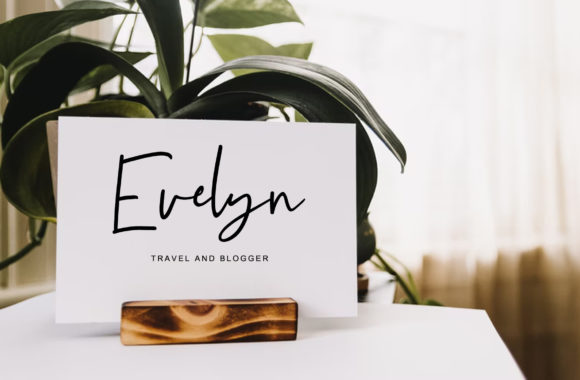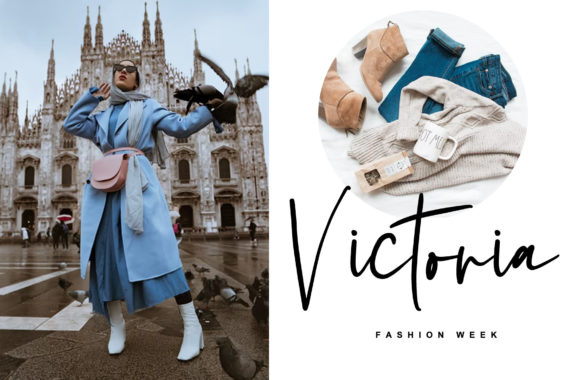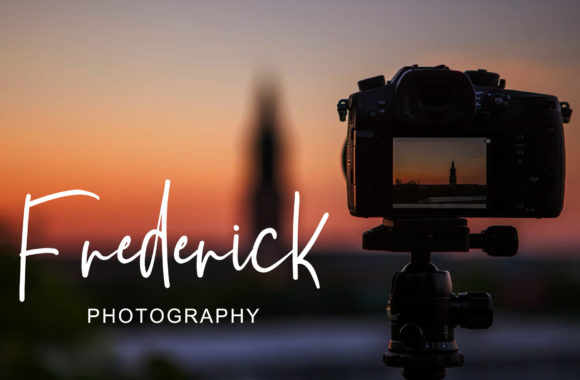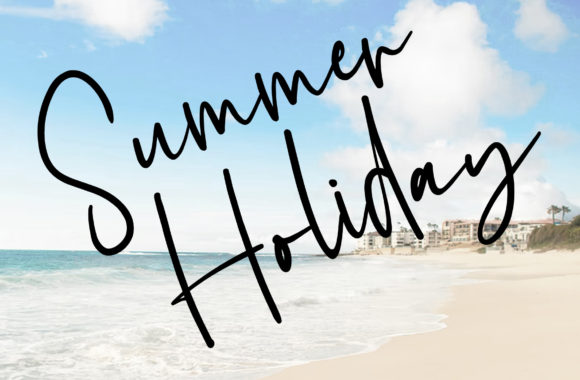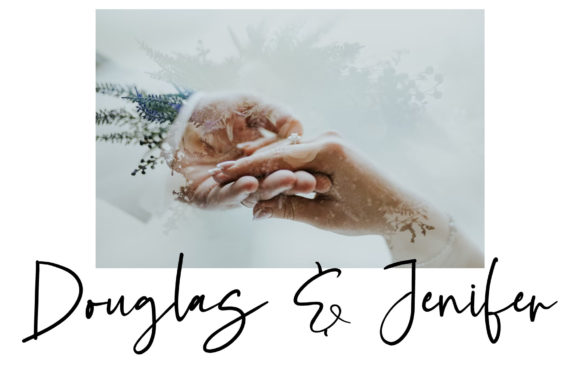
Introduction to Rewillgo Script Font
Rewillgo is a unique and asymmetrical handwritten font.
It is the perfect font for any design project needs and creations Add it confidently to your projects, and you will love the results.
Key Features of Rewillgo Script Font
Why Choose Rewillgo Script Font?
Rewillgo Script Font offers exceptional quality and versatility, making it a valuable addition to your design toolkit. Whether you’re creating for personal projects or commercial use, Rewillgo Script Font delivers professional results.